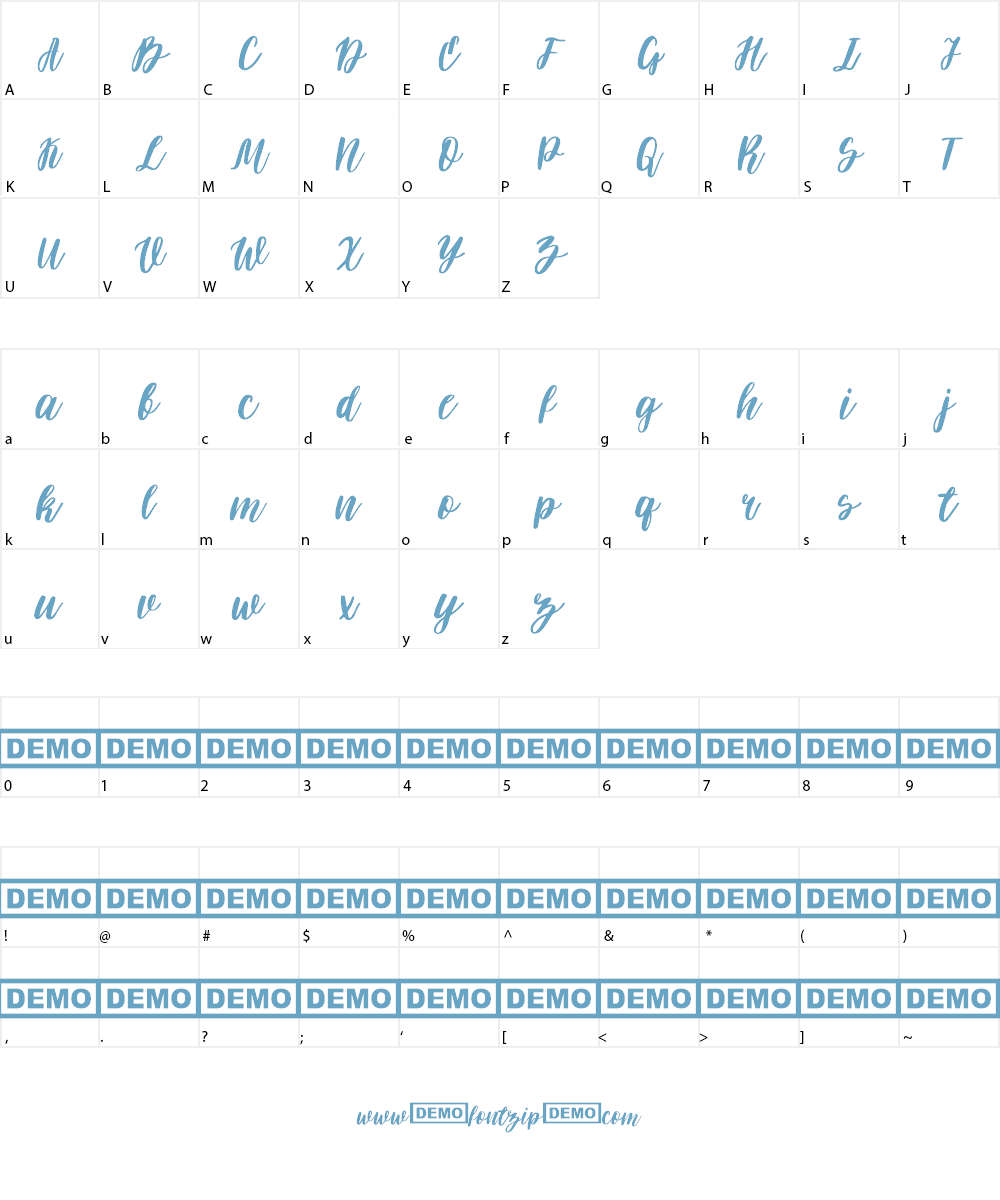
Darflow is a romantic feminine font that simulates carefull handwritten lettering. But at the same time it has impeccable quality and the absence of any excesses. With this font your disign will look delicate and elegant!. Full version of Darflow comes with uppercase, lowercase, standard punctuation and special letters for most of the European languages.